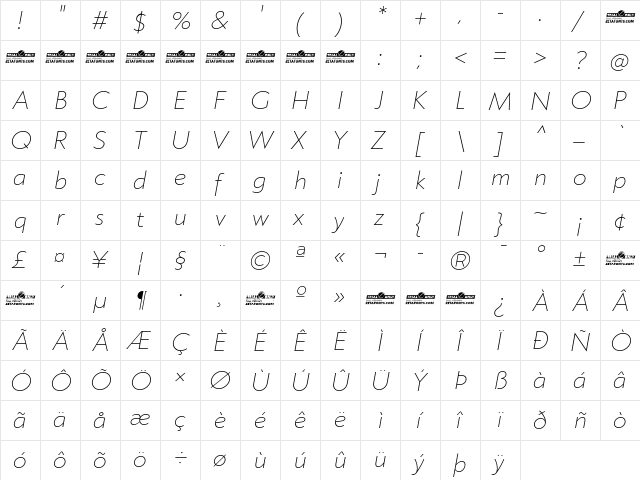
Klein Trial Extralight Italic
| Foundry | Cosimo Lorenzo Pancini & Francesco Canovaro |
| Designer | Cosimo Lorenzo Pancini & Francesco Canovaro |
Design Context for Klein Trial Typeface
Klein Trial is a composed and adaptable typeface that performs quietly and consistently across a wide range of design contexts. Its italic angle brings a sense of urgency and motion to the letterforms. Its slender proportions lend an understated elegance to any composition.